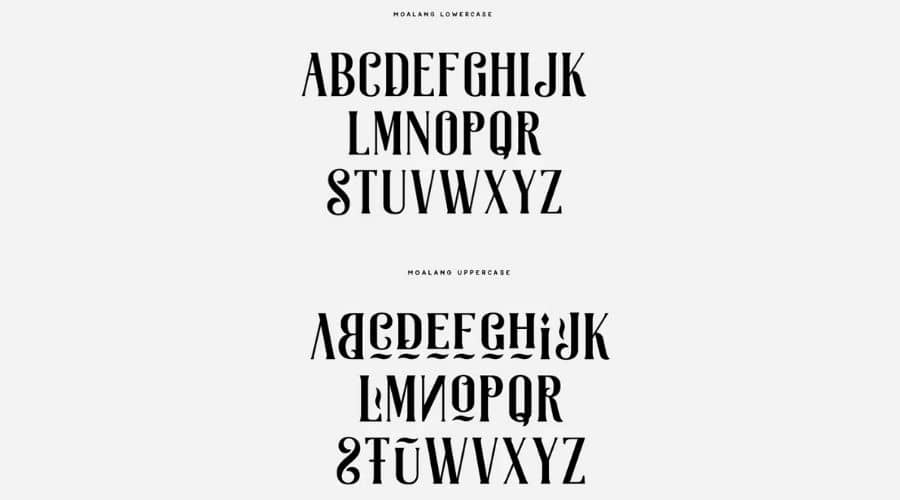
Moalang Typeface
Moalang is a vintage sans serif font with a unique glyph combination that will give your project a new look. This Font includes a plethora of cool Alternate Characters and OpenType Features, allowing for a plethora of possible combinations. swistblnk created and published the Font. On June 22, 2019, the Font was made public. The beautiful sans serif font is PUA encoded. Characteristics of OpenType PUA Encoded and ready to go You don’t need a special tool that supports OpenType Features to access the different glyphs; simply open Character Maps (Windows) or Font book (Mac), and you’re good to go.
The typeface has over 412 glyphs, including Stylistic Sets, Ligatures, and Titling Alternates. Some characters have Stylistic Sets and Titling Alternates, which allow you to mix and match pairs of letters to meet your design. Letters in lowercase and uppercase One of the Font’s features is its characters. The Font is compatible with Windows, Apple/Mac, Linux, Cricut, Silhouette, and other cutting machines. This font allows you a lot of flexibility when it comes to creating something unique. This typeface is available for personal use at no cost. The typeface is available in two different formats, which are OTF and TTF. The typeface offers a lot of cool features that make it a must-have for your font collection.
Headlines, Logotypes, Signs, Posters, Letterhead, T-Shirts, and many other uses are all possible with this Font. The Font is ideal for creating a variety of shopping bags for various businesses. You can use this lovely Font at work to highlight the characteristics of any product from various magazines or catalogues. The Font might also be used on the cover of any horror novel.